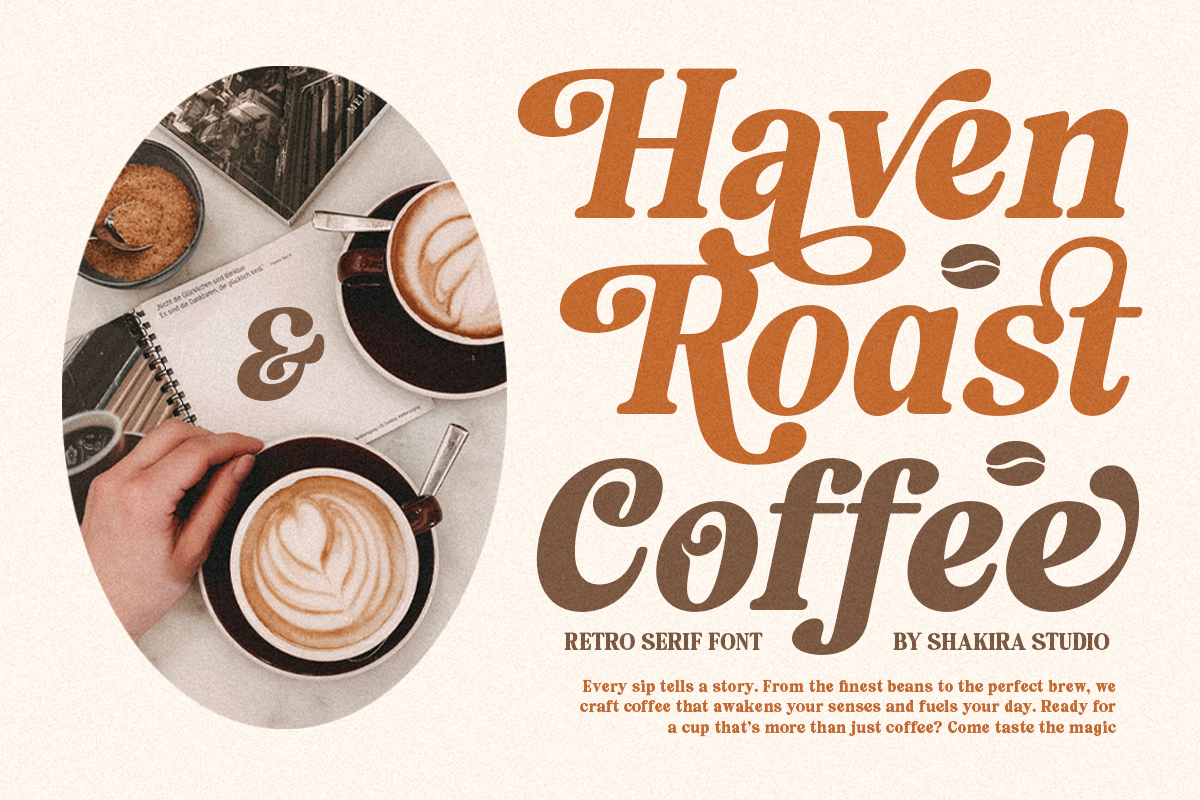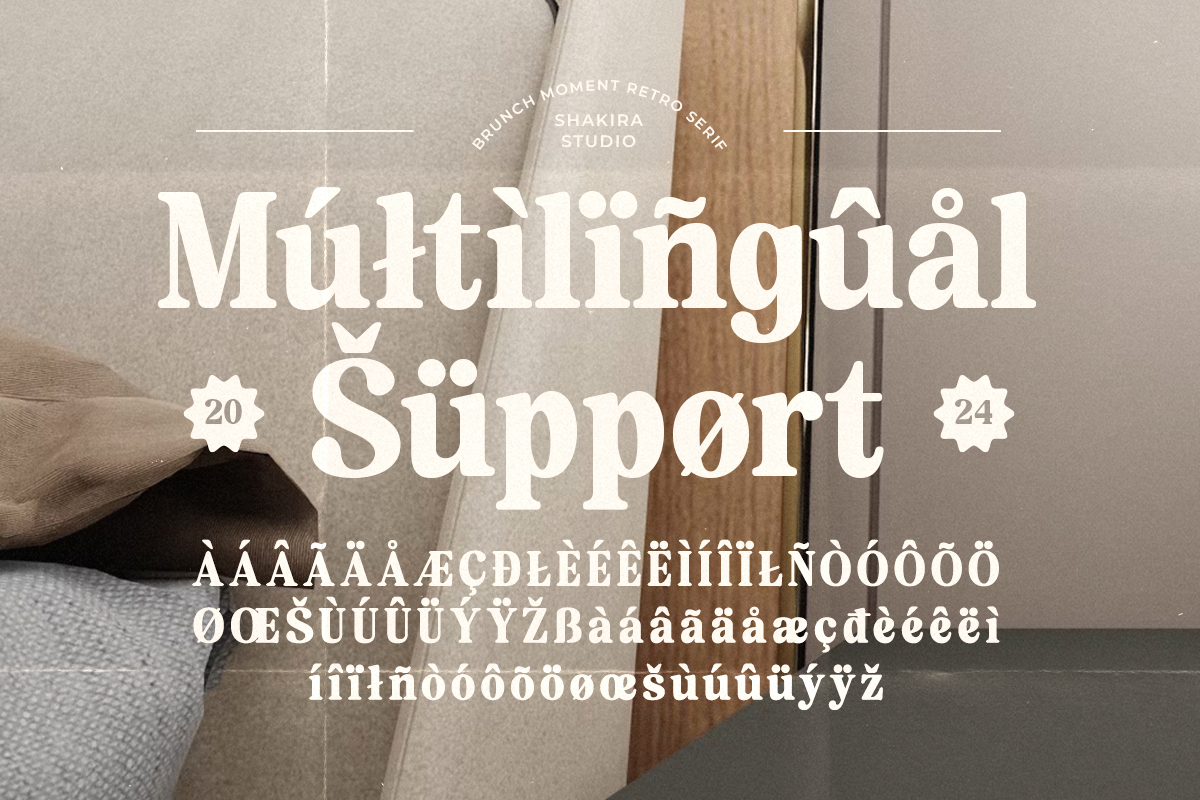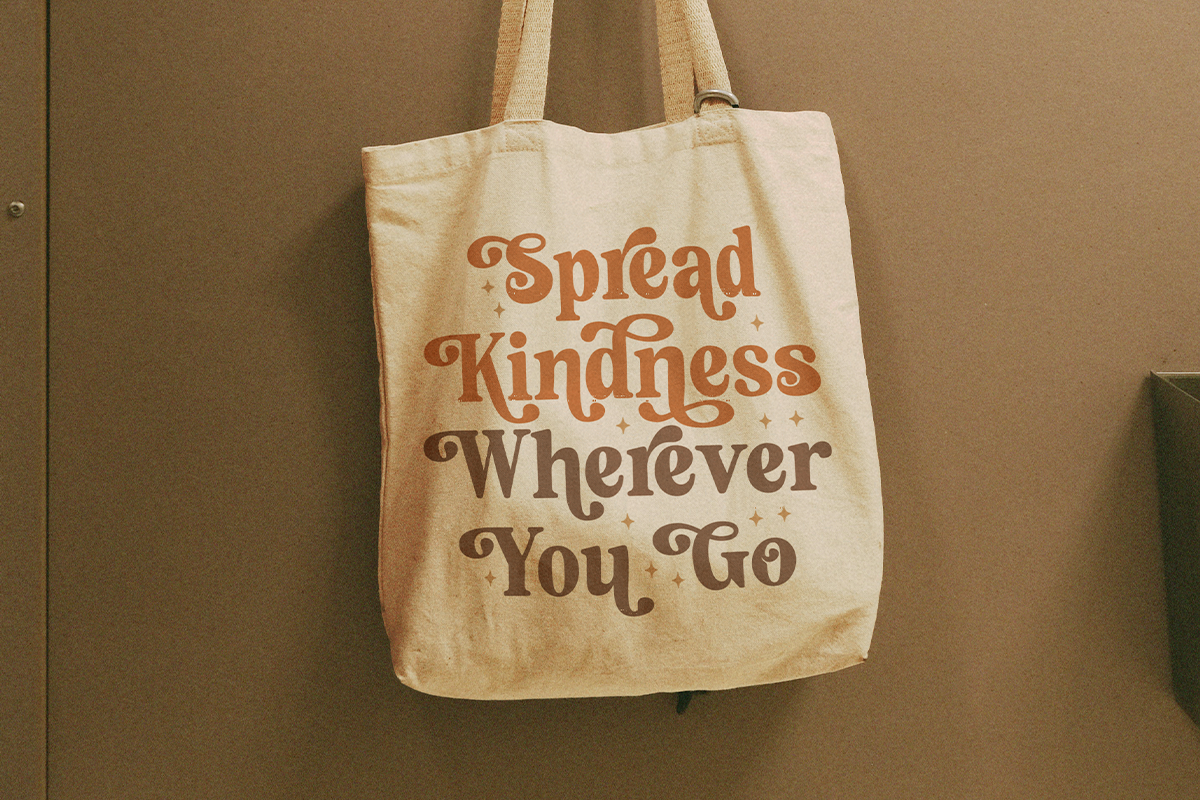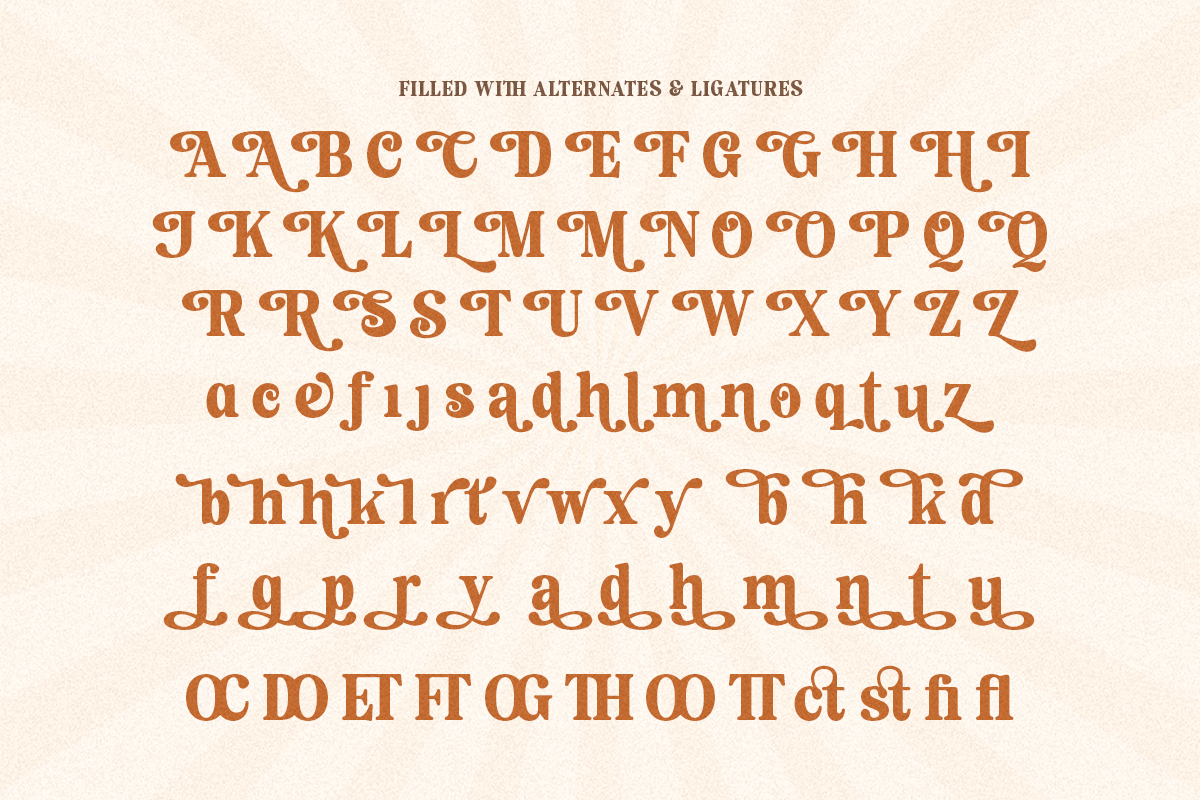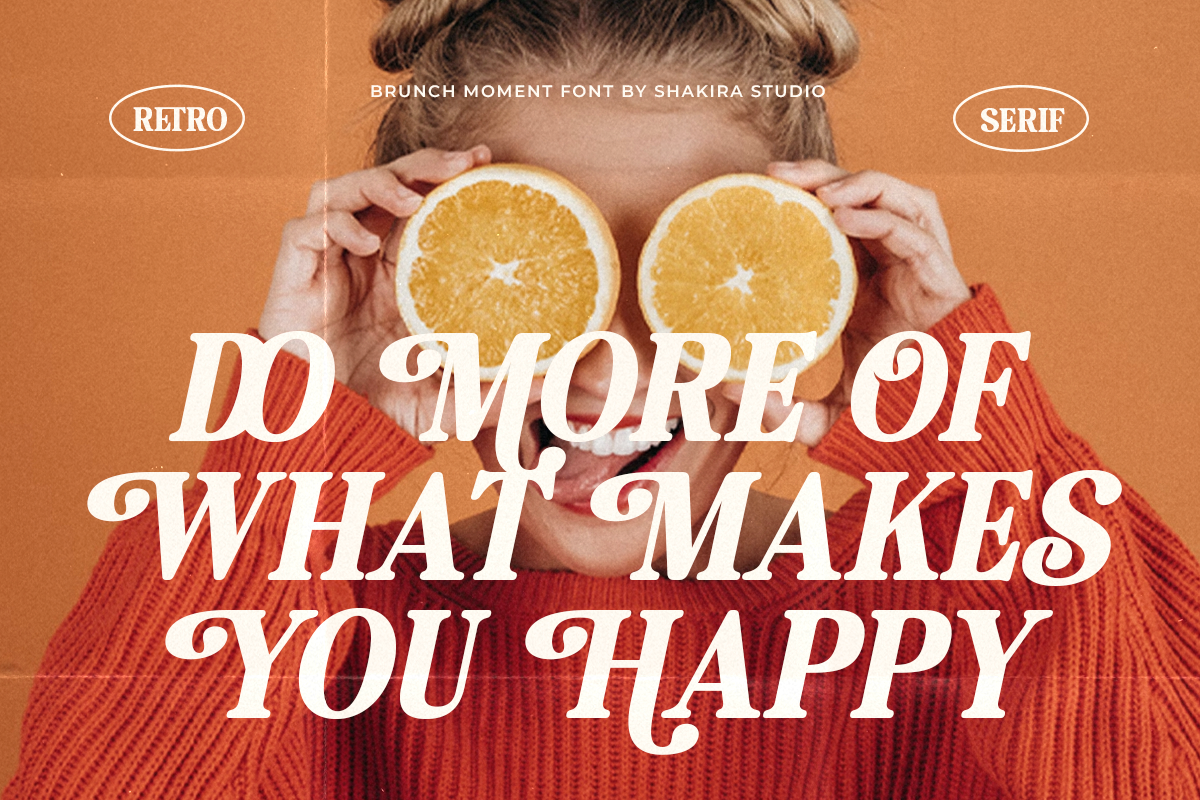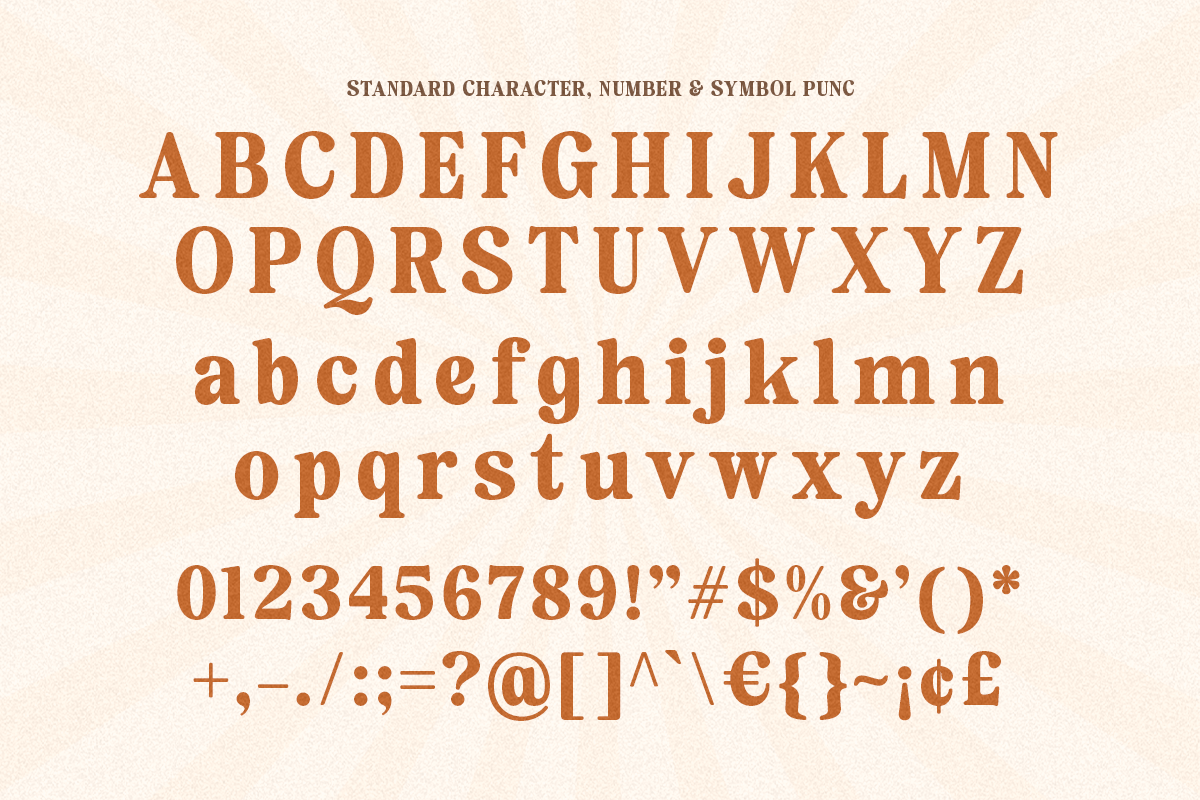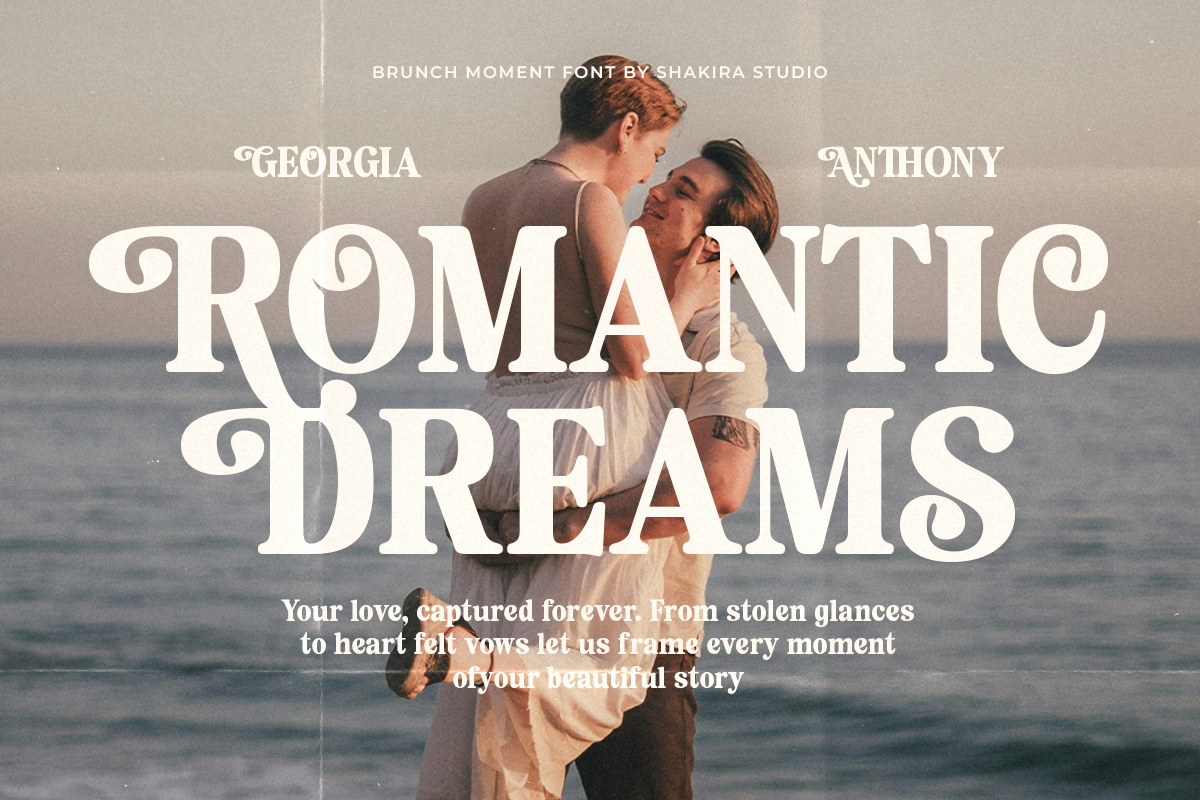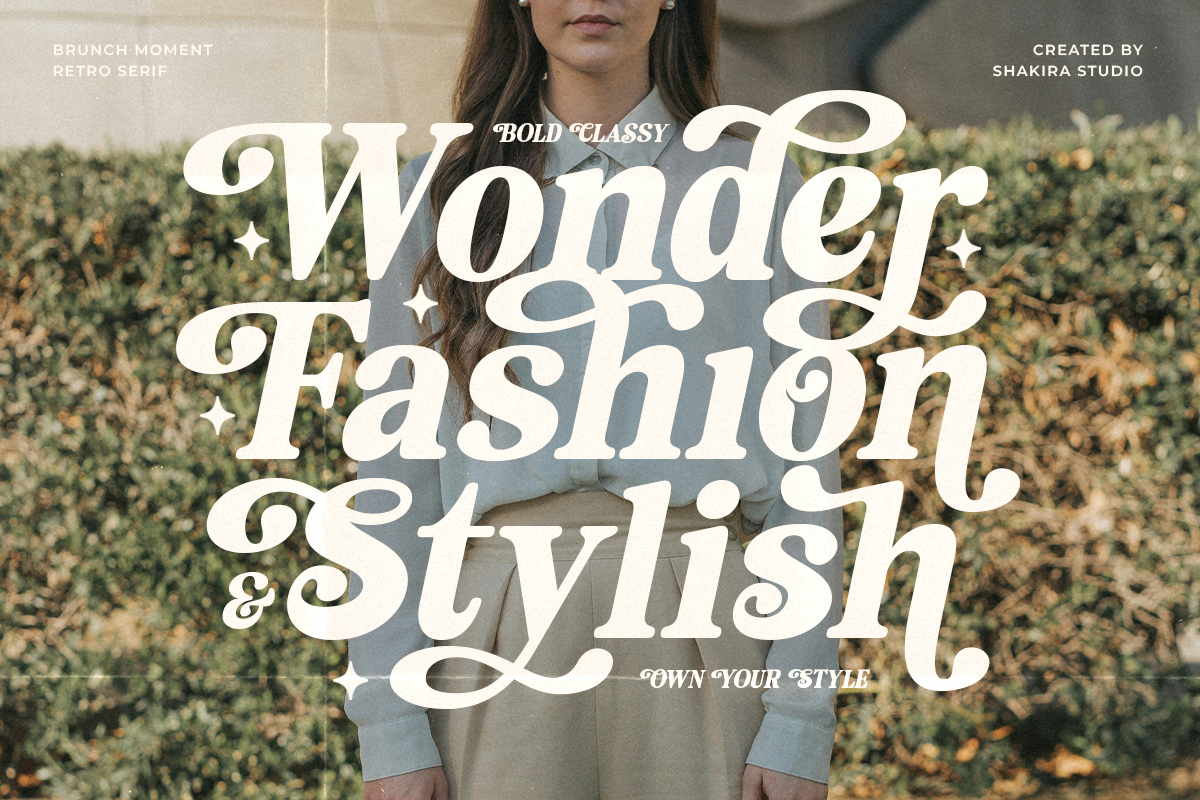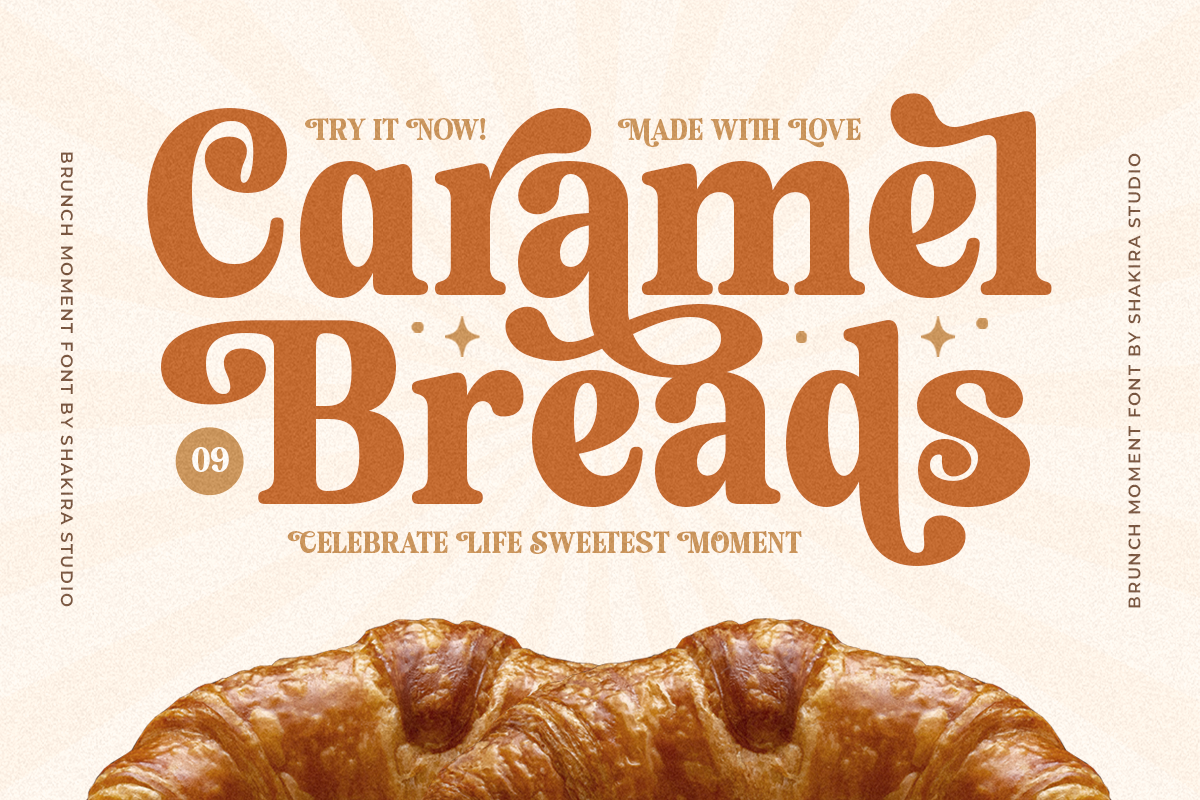
Brunch Moment - Retro Serif
Brunch Moment is a luxurious retro display serif font available in regular and italic styles. It features elegant alternates and stylish ligatures, making it perfect for branding, editorial designs, social media, packaging, and more. Its timeless charm adds sophistication to any project.
- Regular & Italic
- All Multilingual symbol
- Opentype features ( ligature, alternate )
Multilingual character supports : (Afrikaans, Albanian, Catalan, Croatian, Czech, Danish, Dutch, English, Estonian, Finnish, French, German, Hungarian, Icelandic, Italian, Lithuanian, Maltese, Norwegian, Polish, Portuguese, Slovenian, Spanish, Swedish, Turkish, Zulu)